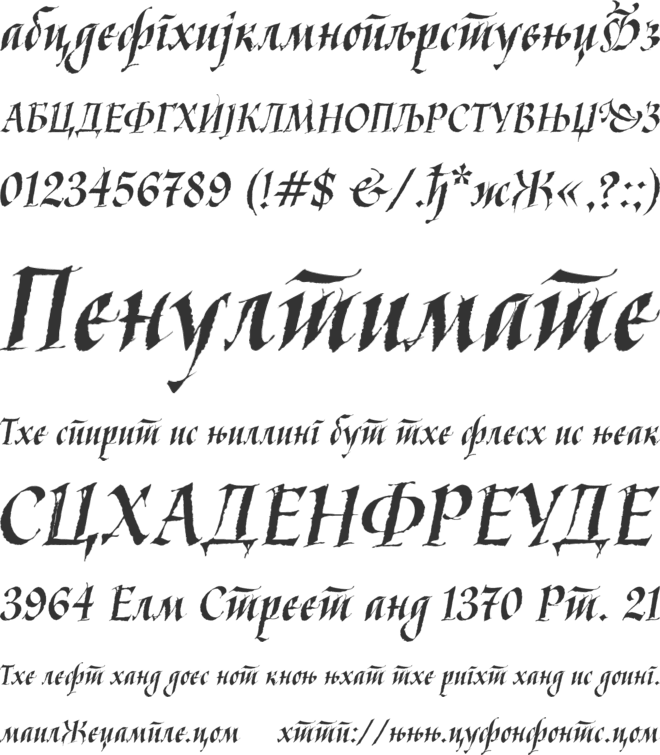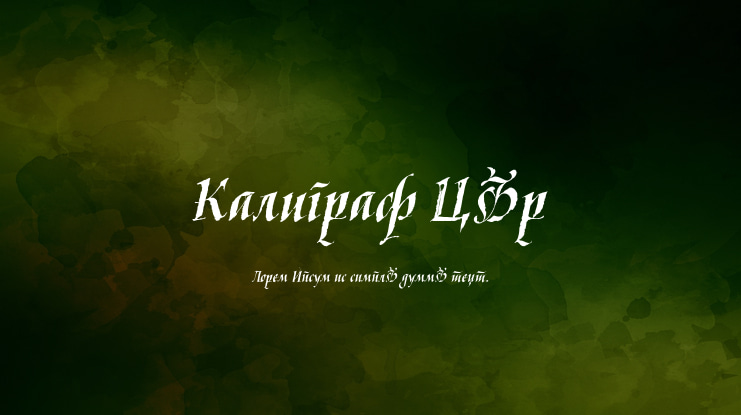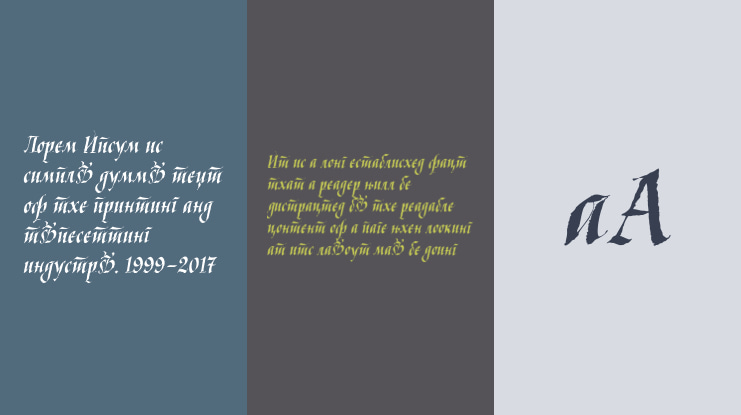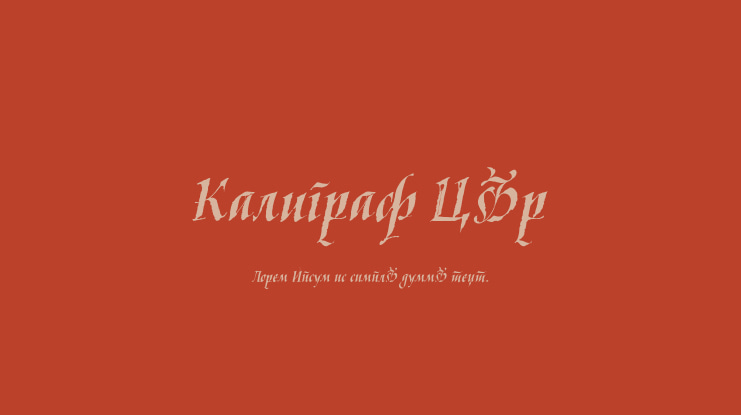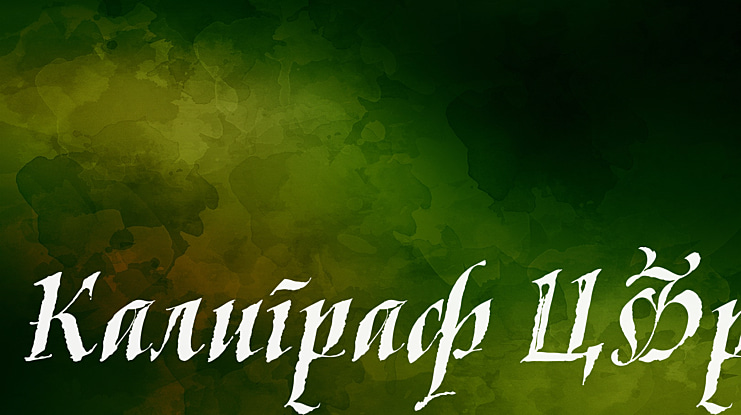
Kaligraf Cyr Font Family
Lazar Dimitrijevic
All characters are formed from personal handwriting, which was taken from the pages of my calligraphy.I hope that it will help those who are less skilled at calligraphic writing. Font includes a few ornaments that can be useful in creating typographic pages. At the request of many users of "Kaligraf Latin" font, I created the Cyrillic version "Kaligraf Cyr". I hope that those who use the Cyrillic alphabet will enjoy using it.